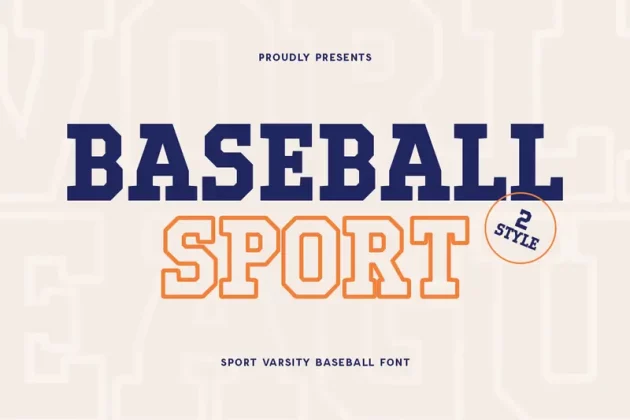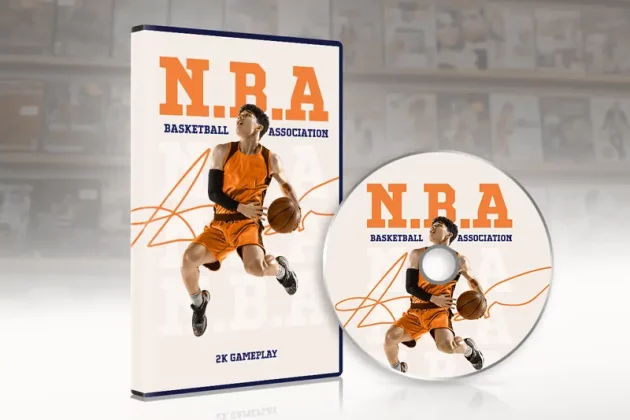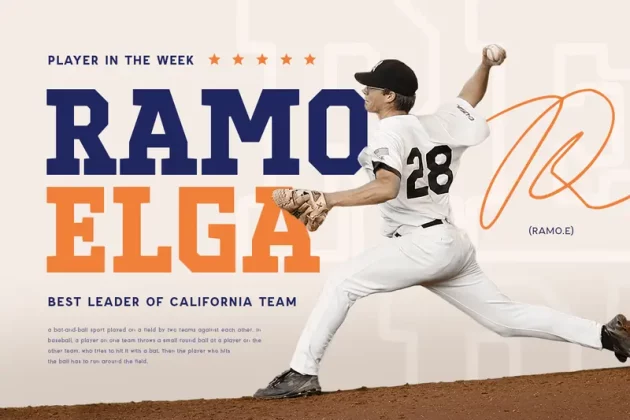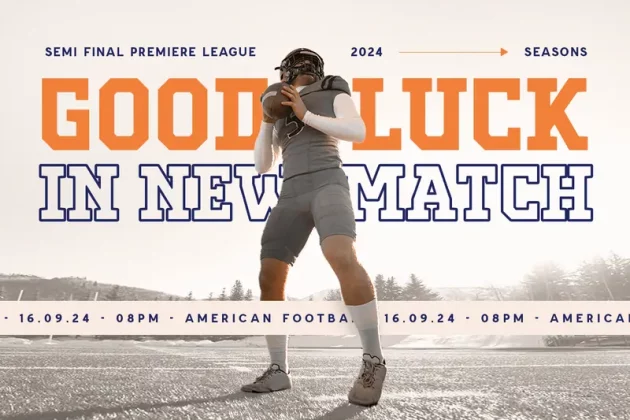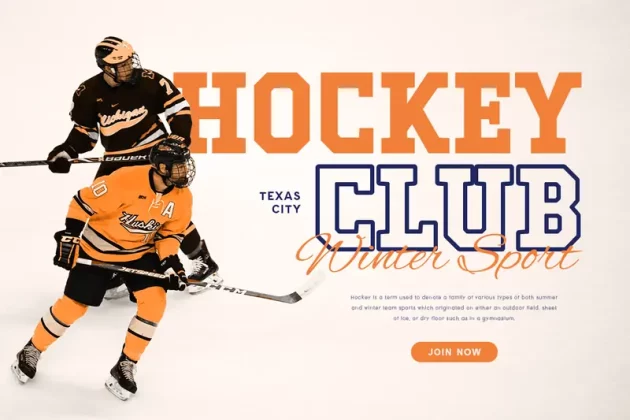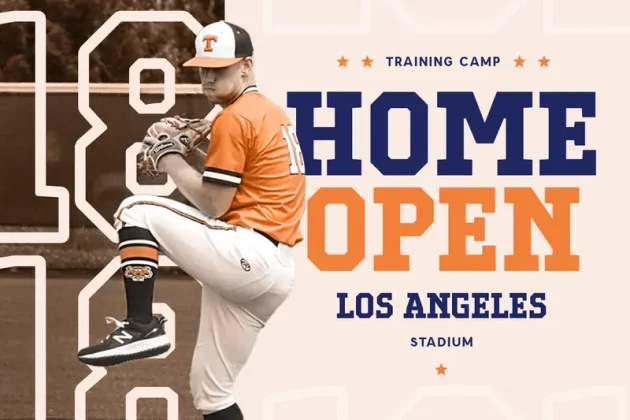
About Baseball Sport – Varsity Font
Baseball Sport – Sport Varsity Baseball Font Family that we created special for Professional and Modern Headline needs that will give you more Unique look and more efficient in area, with 2 styles in unique shape will be ready to add value of your design. It so nice to leverage designer or product owner that need solutions to make their design look more Professional and modern. And specially for this font, We prepared 2 styles to help you create unlimited variations for your creative needs.